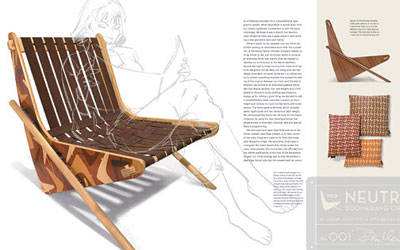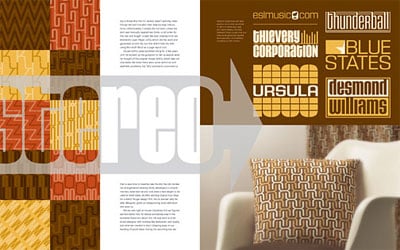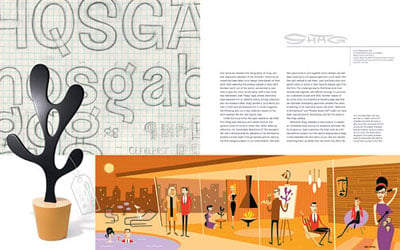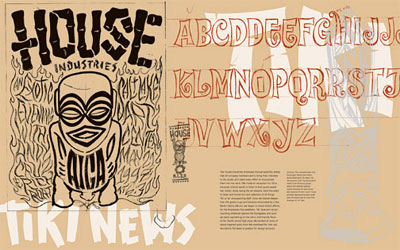
The book that House Industries put together for their 10th anniversary is a tour-de-force of production meeting design.
House Industries, the Delaware-based digital type foundry with a flair for promotion, is celebrating 10 years in business with a big new book, "House Industries" (Berlin: Die Gestalten Verlag, 2004). The tone is set right from the start, in the initial credits: "Book completely overdesigned and profusely illustrated by House Industries." That's been their style since they began in 1993.
Intense use of the techniques of print production such as overprinting multiple inks and working directly with the producers of packaging materials characterizes the House Industries approach. They got their start when Andy Cruz and Rich Roat landed a commission from Calumet Carton for a promotional piece for the company's CD packaging. The two young designers immediately started their own firm in a cramped back room, and they worked wonders with the rough, brown Kraft material that Calumet wanted to promote.
Since then, House has made its mark through promotion and packaging not only for design clients but, more importantly, for itself. The 10th-anniversary book is a sort of culmination of this progress. Many of the best House Industries designs, both typefaces and presentation, are shown here in vivid color, and the book itself is a polished example, featuring overprinted finishes and washes and metallic inks; according to Rich Roat, they were on the press check in Berlin for two weeks as the book was being printed. Some of the pages actually glow as you flip through them, if the light is right. (This is not always a good thing. There are a few places -- but not many -- where the silver ink overprints on bits of the text, which makes it hard to read.)
Enthusiasm and Style
I've written before about House Industries' flair for self-promotion; it's on full display here. I've also written (and so have others) about House's love affair with early-Sixties visual culture, from the trappings of high Modernism to the excesses of Ed "Big Daddy" Roth's muscle cars. Although Rich Roat says that they hate to be called "retro," it's not surprising that the term gets applied to their work quite often. But unlike those graphic designers who just borrow the visual styles of a period and use them again, the House homages are re-thought and re-worked and extended, not just copied or imitated.
On your first time through the book, you notice the work: all the intricate, over-the-top printed pieces and the highly styled layouts and the perfectly straight-faced allusions in the typeface samples. A second look makes you aware of the book itself, of how well it's put together, of the elegant page spreads that combine text and illustrations seamlessly, of the pacing as you flip through. Their graphic work is so outrageous and elaborate that they've taken a classic path of presentation: letting it stand in contrast to a very simple, straightforward typographic treatment of the running text. There are no pull-quotes or big splashes of text treated as display type; the words run along at their own pace, in neat, ragged-right columns of simple sans-serif type, not trying to compete with the lavish illustrations. Although pictures must cover at least three-quarters of the page surfaces, text and art looked well integrated and well balanced. This is not just a picture book; these designers respect their text.
Content Meets Design
The text is written and edited by Andy Cruz, Ken Barber, and Rich Roat, in a snappy, smart-aleck, self-deprecating verbal style. They present themselves as though they were under-achieving layabouts, flipping burgers and occasionally conning someone into giving them money for some design work.
It's a pose, but an entertaining one. They describe, for instance, grabbing some fast food at Taco Bell and noticing that "all of the signage as well as our Nachos Belle Grande packaging included a first-rate application of Coop Latin. (The House Industries trending and forecasting department has always depended heavily on fast food collateral to spot the next type fashions.)" They then go on to say, "The work of the Taco Bell designers was not without precedent," and give a lucid description of the background to this style of lettering.
There's actually quite a lot of text in this book; it may be a browser's delight, as you'd expect, but it also documents and catalogs a decade's worth of type and design trends, initiated by House Industries. And it's done in a way that makes it all fun -- a hallmark of everything that the House gang does. In a sense, their approach is to turn graphic design into show business (as anyone who has heard them speak at a design conference can confirm); but it's not hype, it's fun. They manage to be high-energy self-promoters and still not take themselves too seriously -- a difficult dance that requires that you never stop moving.
Sure, the "House Industries" book is a self-promo piece. A wonderful one. Enjoy it.